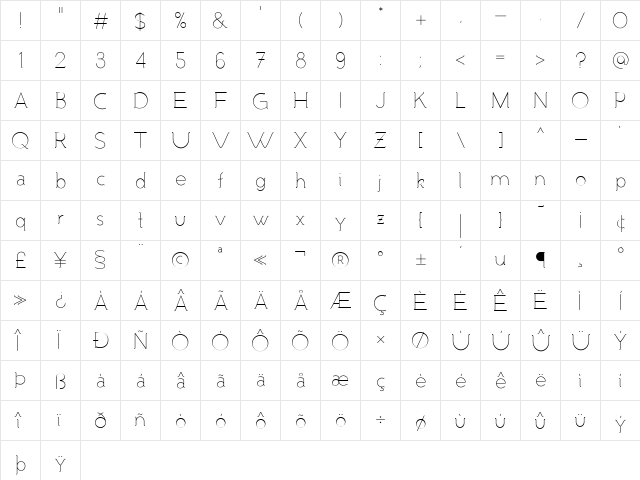
Malandrino Thin Font Preview
Malandrino Thin
Malandrino Thin Font Details
| Style | Thin |
| Foundry | Studio Monocromo, Monofonts. |
| Designer | Andrea Cerboneschi & Claudio Lietti |
Design Context for Malandrino Typeface
Malandrino is a composed and adaptable typeface that performs quietly and consistently across a wide range of design contexts. The delicate stroke weight brings airiness and refinement to layouts.